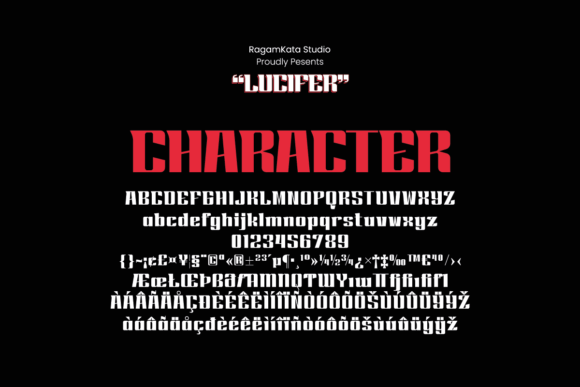
In a realm beyond the ordinary, where creativity reigns supreme, there exists a font like no other: Lucifer Font. A meticulously crafted Modern Display Font, Lucifer beckons you to break free from the mundane and embrace the extraordinary.
Unleash your technical prowess and let your words dance with grace upon the pages of your books. With Lucifer Font, your technical writings will transcend mere words and transform into a symphony of knowledge, captivating your readers with its effortless elegance.
As a child of RagamKata Studio, Lucifer Font carries with it a rich lineage of innovation and artistry. Its creators, with hearts ablaze with passion, have poured their very souls into this masterpiece, ensuring that every curve, every stroke, and every glyph resonates with brilliance.
Immerse yourself in a world where typography meets artistry, where form and function intertwine to weave a tapestry of visual delight. Lucifer Font's distinctive charm lies in its versatility, effortlessly adapting to an array of creative endeavors, from branding and logos to headlines and captions.
With Lucifer Font as your creative companion, your designs will transcend the boundaries of the ordinary, captivating your audience with its magnetic allure. Let your imagination soar as you witness the seamless fusion of tradition and modernity in this typographic marvel.
But Lucifer Font is more than just a collection of letters; it's an invitation to embark on a journey of self-expression. Its PUA encoding grants you access to a hidden realm of glyphs and ligatures, allowing you to unleash your creativity and weave intricate tales with each stroke of your keyboard.